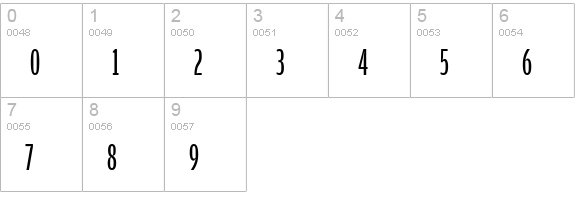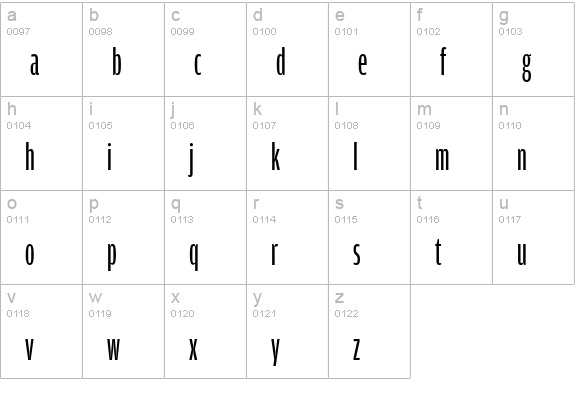
AmplitudeExtraComp-Regular Font Details
AmplitudeExtraComp-Regular is the standard, neutral variant in the AmplitudeExtraComp typeface family \xE2\x80\x94 well suited to general body text, paragraphs, and standard typographic work.
AmplitudeExtraComp-Regular is a versatile and modern font that adds a touch of sophistication to any design project. With its clean lines and balanced proportions, this typeface exudes a sense of professionalism and elegance. Whether used for branding, editorial design, or web content, AmplitudeExtraComp-Regular is sure to make a lasting impression. The best part? This high-quality font is available for free download at FontsMarket.com. Don't miss out on the opportunity to enhance your projects with this stylish and easily accessible typeface. Download AmplitudeExtraComp-Regular today and elevate your design game!